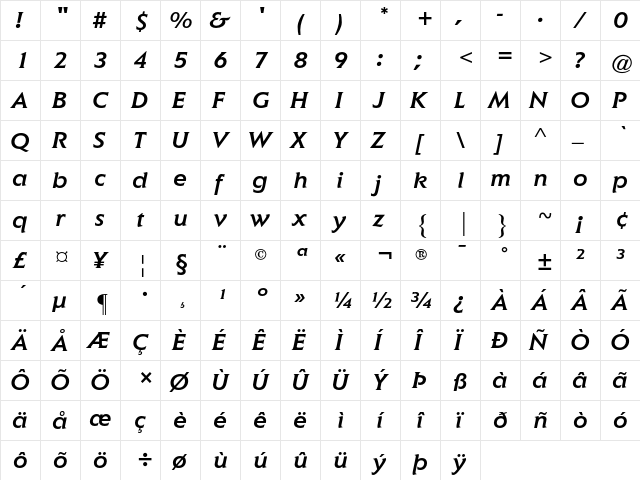
Elan AT Medium Italic
Design Context for Elan AT Medium Typeface
Elan AT Medium is a composed and adaptable typeface that performs quietly and consistently across a wide range of design contexts. The slanted form adds forward momentum and visual energy.